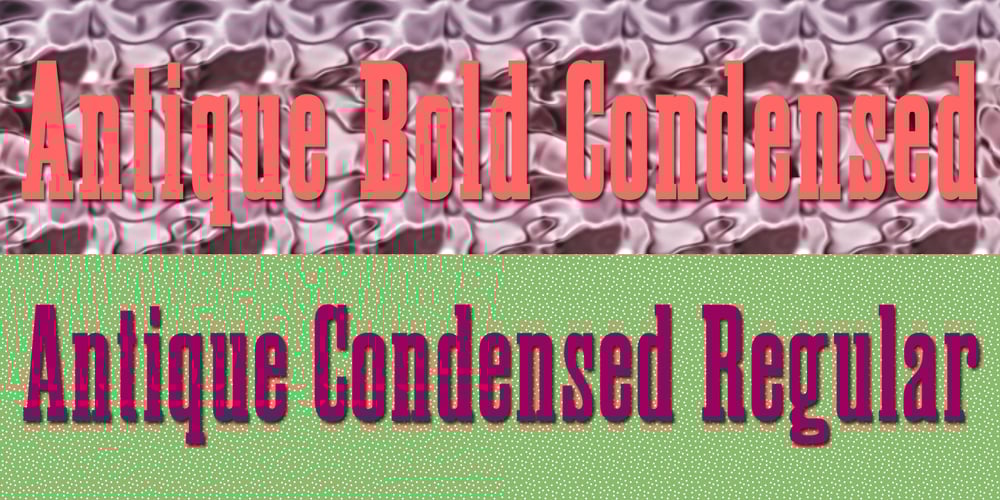
Antique Condensed Font Family was designed by Jordan Davies and published by Wooden Type Fonts. Antique Condensed contains 2 styles and family package options. A revival of one of the popular wooden type fonts of the 19th century, suitable for text or display, medium and bold weights.